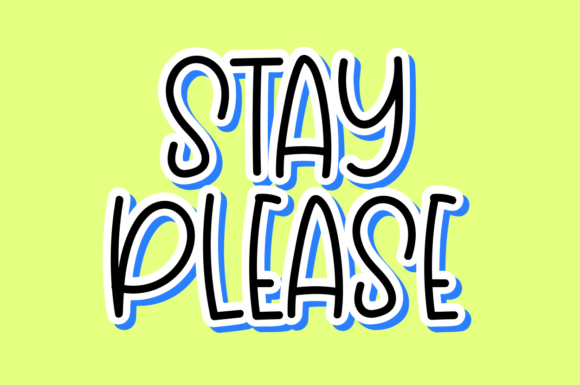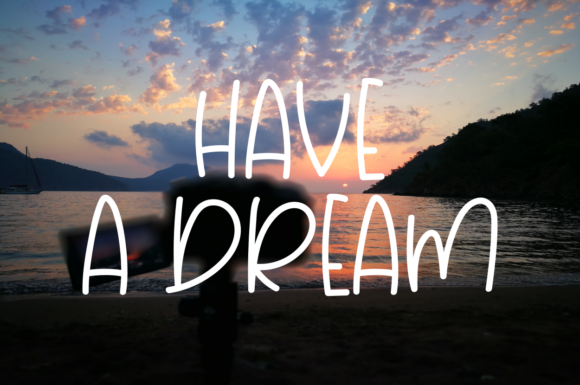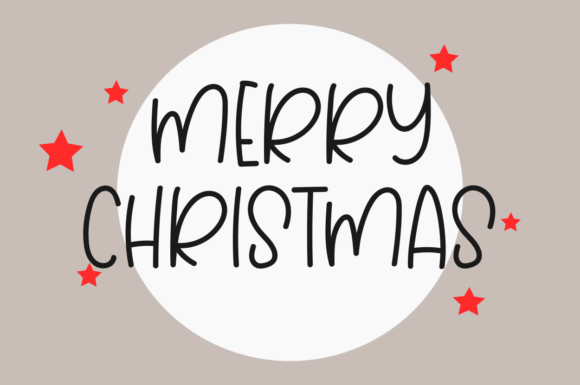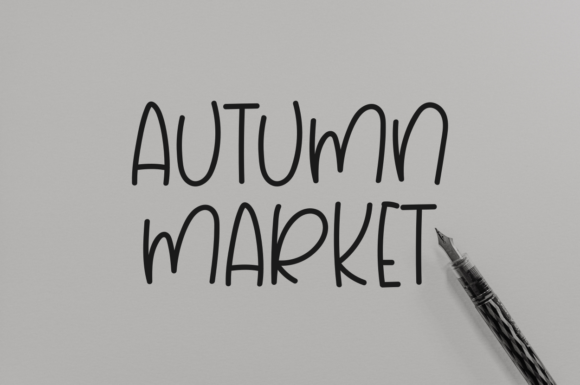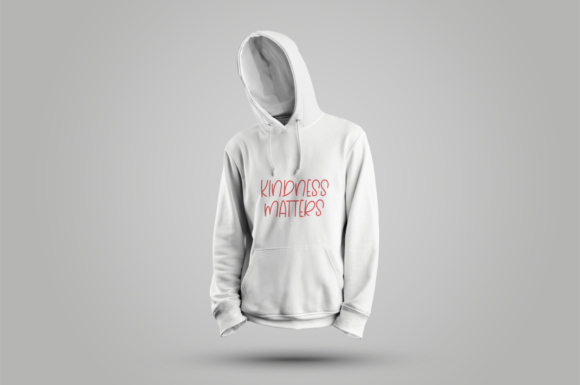
Bring the Beach to Your Designs
Have you ever stumbled upon a beautiful beach at sunset and felt the urge to capture its essence in a design? The vibrant colors, the soft waves, and the tranquility of the atmosphere all come together to create a breathtaking scene. As a designer, you know that moments like these can inspire some of your best work.
Introducing Beach Land Font, a stylish display font that will transport your designs to a tropical paradise. This unique font is perfect for adding a creative touch to posters, thank you cards, quotes, greeting cards, logos, business cards, and more. With Beach Land Font, you’ll be able to bring a sense of adventure and relaxation to your designs, making them stand out from the crowd.
As a designer, you’re always on the lookout for new and exciting ways to express yourself. That’s where Beach Land Font comes in – a valuable addition to your design toolkit that will help you create stunning visuals that evoke the feeling of a beach getaway.
Key Features of Beach Land Font
- Font Family: Beach Land Font is a unique, handwritten font designed for creative and casual purposes.
- Font Size: Beach Land Font is designed to be used at medium to large font sizes, ideal for headings and titles.
- Resolution: Optimized for high-resolution displays, making it perfect for use in digital designs, such as website headers, social media graphics, and advertising materials.
- Unique Characteristics: This font features a beautiful, hand-drawn style with subtle imperfections, giving it a natural, organic feel.
Beach Land Font Review
I recently had the chance to work with the “Beach Land Font” and I must say it’s a mixed bag. ✨ One thing that really stands out is the friendly, approachable vibe it gives off. It’s perfect for any project that needs to convey a sense of relaxation and carefree fun.
Another plus is the versatility of the font. It comes in a variety of weights and styles, making it easy to use in different contexts. Whether you’re designing a logo, a brochure, or a website, Beach Land Font is sure to fit the bill.
Here are some specific features that I liked:
- Wide range of weights and styles
- Friendly, approachable vibe
- Perfect for relaxation and carefree themes
However, there are also some limitations to consider ⚠️:
- May not be the best choice for formal or professional projects
- Some characters may not be as detailed or nuanced as others
- Not as unique or distinctive as some other fonts
Overall, I think Beach Land Font is a solid choice for the right project. While it may not be perfect, it’s a friendly and approachable font that can add a lot of character to your design.
Practical Application Guide: Beach Land Font
Tips for Getting the Most Out of Beach Land Font
Experiment with different font sizes and styles to create a visually appealing design. Use Beach Land Font in combination with other fonts to create a unique and interesting typography. Consider using Beach Land Font for headings and titles, and pair it with a simpler font for body text.
Beach Land Font is perfect for creating beach-themed designs, such as posters, flyers, and social media graphics. It’s also great for creating typography-based art or illustrations that evoke a beachy vibe. Consider using Beach Land Font for designs related to summer, vacation, or relaxation.
What is the recommended font size and line height for the Beach Land Font?
For optimal readability, we recommend using a font size between 12px to 18px and a line height of 1.2 to 1.5 times the font size. This will ensure that the text is clear and easy to read, even on smaller screens or devices. You can adjust these settings according to your design requirements and preferences.